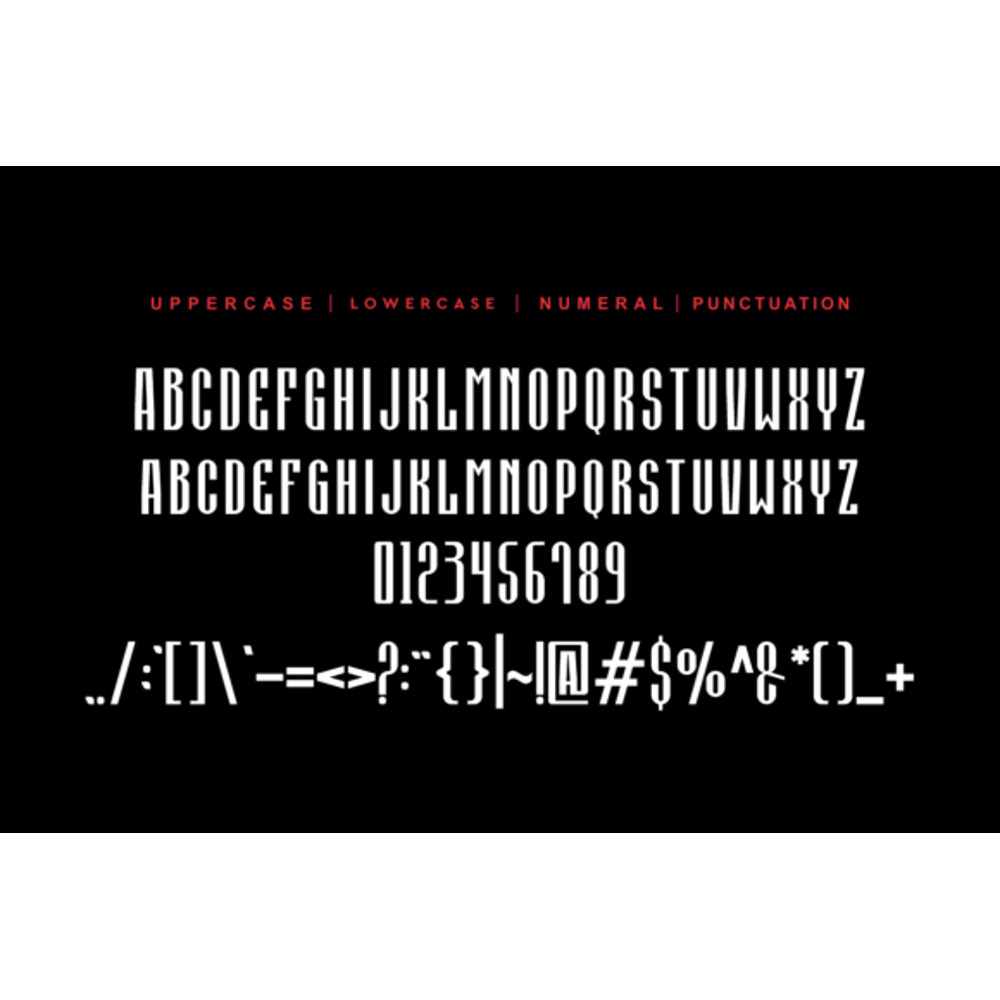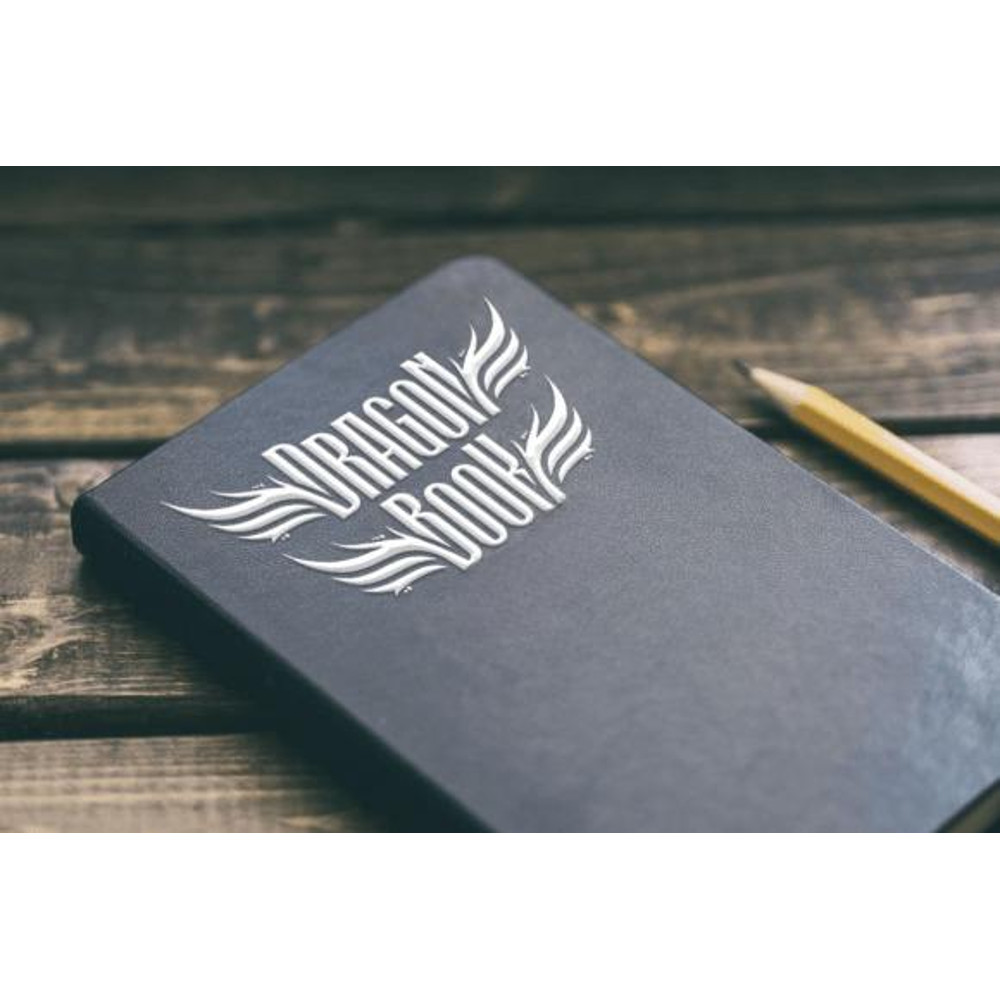
Dragon Blacker Font
Dragon Blacker is a unique and interesting display font.  A little bit quirky, this font looks incredibly adept on a wide variety of contexts!